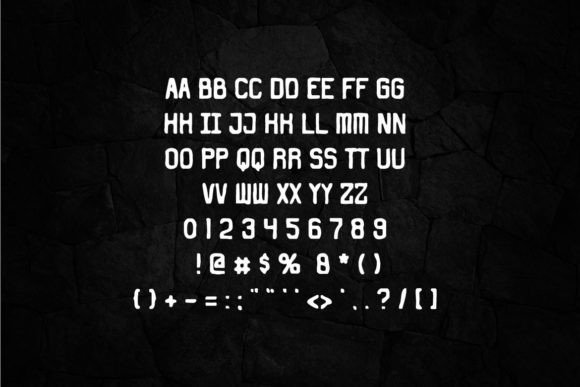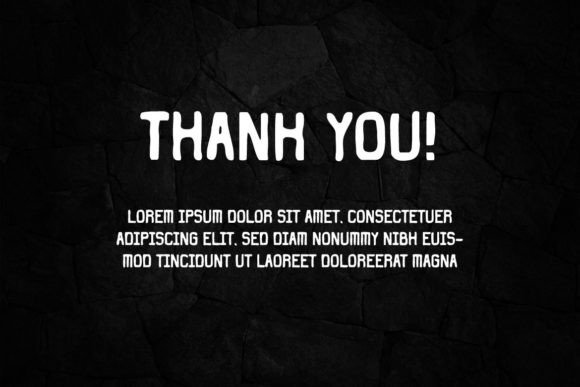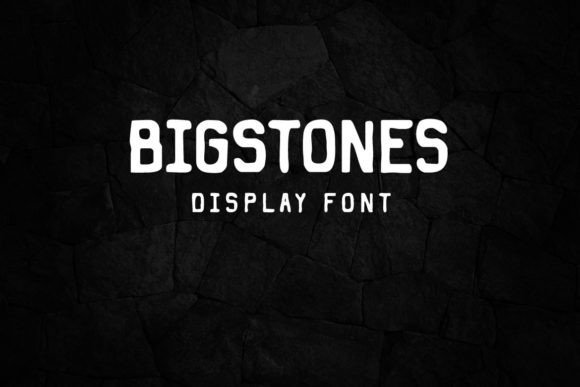
Unleash the Ancient Charm with Bigstones Font
Are you looking for a font that adds a touch of the stone age to your designs? Look no further than Bigstones Font, a unique and fun display font that brings an ancient look to a wide range of projects. In this article, we’ll explore the features and benefits of Bigstones Font, and how it can elevate your designs to the next level.
The Stone Age Style of Bigstones Font
Bigstones Font is inspired by the rugged, weathered look of ancient stones. Its stone age style gives it a distinctive, prehistoric feel that’s perfect for designs that require a sense of history and nostalgia. The font’s rugged texture and irregular shapes evoke the feeling of stones carved by time and weather, adding a sense of authenticity to your designs.
What Makes Bigstones Font Unique?
So, what sets Bigstones Font apart from other display fonts? Here are a few features that make it truly unique:
- Ancient look: Bigstones Font has a distinctly ancient feel, with a weathered texture that gives it a worn, aged appearance.
- Stone age style: The font’s stone age style is perfect for designs that require a sense of ruggedness and history.
- Fun and playful: Despite its ancient look, Bigstones Font has a playful, fun vibe that’s perfect for designs that require a sense of whimsy.
- Highly versatile: Bigstones Font can be used for a wide range of projects, from logos and branding to posters and packaging.
Who Can Benefit from Bigstones Font?
Bigstones Font is perfect for designers and crafters who want to add a touch of the stone age to their designs. Here are a few examples of projects that Bigstones Font would be well-suited for:
- Logos and branding: Bigstones Font would be a great choice for logos and branding that require a sense of history and authenticity.
- Posters and flyers: The font’s bold, playful style makes it perfect for posters and flyers that require a sense of fun and energy.
- Packaging design: Bigstones Font would be a great choice for packaging design that requires a sense of ruggedness and history.
- Stationery and cards: The font’s unique style makes it perfect for stationery and cards that require a sense of whimsy and personality.
- Use it as a display font: Bigstones Font is perfect for display text, such as headings and titles.
- Experiment with colors: The font’s rugged texture looks great in a range of colors, from earthy tones to bold brights.
- Pair it with other fonts: Bigstones Font pairs well with a range of other fonts, from serif and sans serif fonts to script fonts.
Bigstones Font is a unique and fun display font that brings an ancient look to a wide range of projects. Its stone age style and rugged texture make it perfect for designs that require a sense of history and authenticity. Whether you’re a designer or crafter, Bigstones Font is a great choice for adding a touch of the stone age to your designs. So why not give it a try and see how it can elevate your designs to the next level?